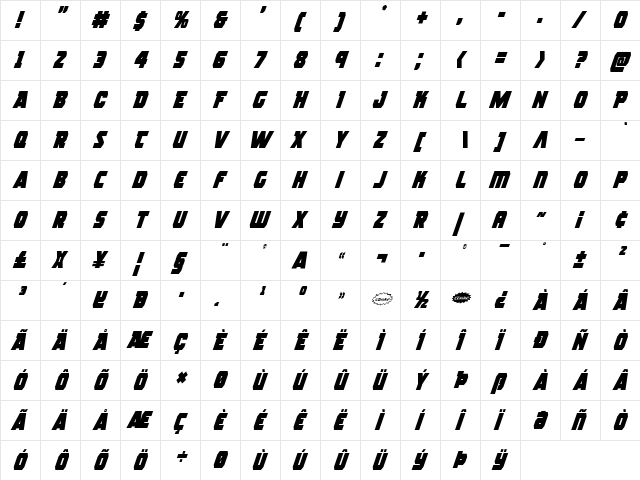
Rogue Hero Condensed Italic Font Preview
Design Context for Rogue Hero Condensed Italic Typeface
Rogue Hero Condensed Italic offers clean, dependable letterforms without strong stylistic allegiance, making it a practical choice for designers who need flexibility. Its italic angle brings a sense of urgency and motion to the letterforms. The condensed width makes it efficient for tight spaces without sacrificing legibility.
Pro Tip: Try Rogue Hero Condensed Italic for annotation and caption copy alongside an upright companion — the contrast in angle creates a dynamic but ordered typographic system.